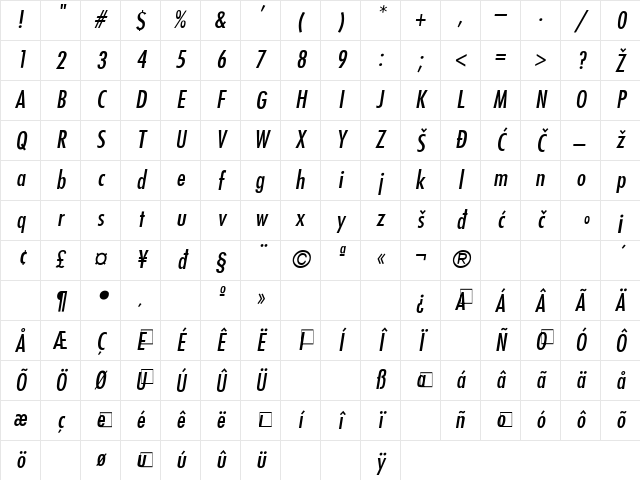
Complete Fujijama Slim Italic YU Regular glyph index. Displaying only characters natively supported by Fujijama Slim Italic YU Regular font.
Fujijama Slim Italic YU is a composed and adaptable typeface that performs quietly and consistently across a wide range of design contexts. The slanted form adds forward momentum and visual energy.